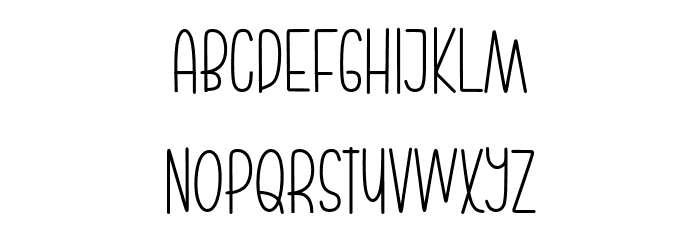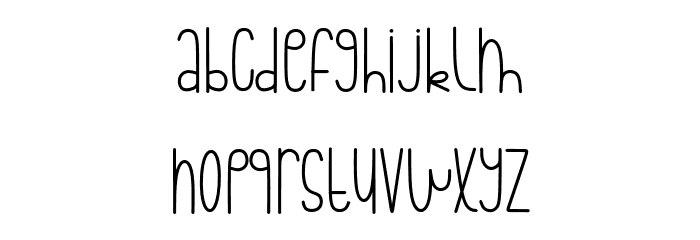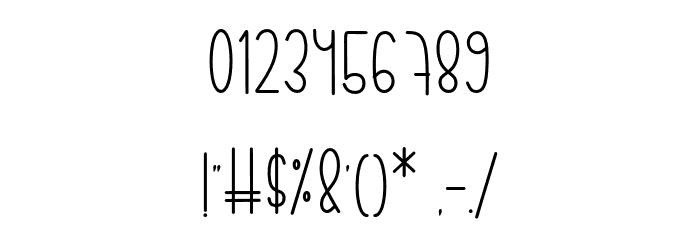
Licoriece Font
This font features a playful and whimsical design with elongated and slightly curved letterforms. The characters have a unique, hand-drawn quality that adds a sense of fun and creativity. The uppercase letters maintain a consistent height, while the lowercase letters exhibit a charming irregularity, enhancing the font's casual and approachable feel. The numerals and special characters follow the same quirky style, making the font versatile for various creative projects. Its distinctiveness lies in the subtle curves and loops that give it a lively and dynamic appearance.
A playful, hand-drawn font with elongated, whimsical letterforms.
- Font: Licoriece
- Proposed Projects: Ideal for children's books, playful branding, greeting cards, and creative posters.
- Overall Style: Playful